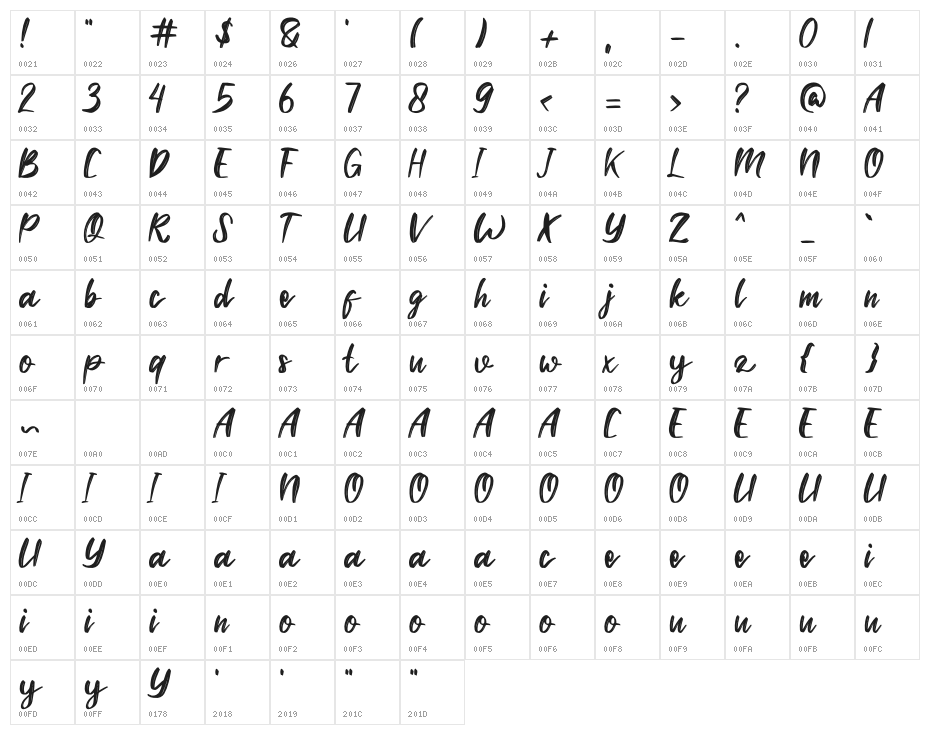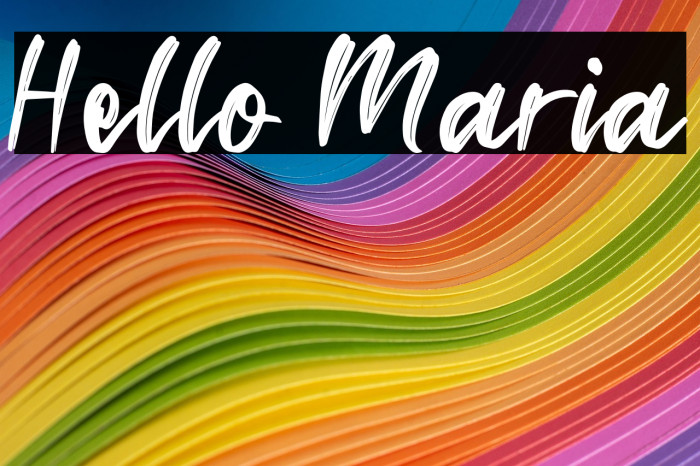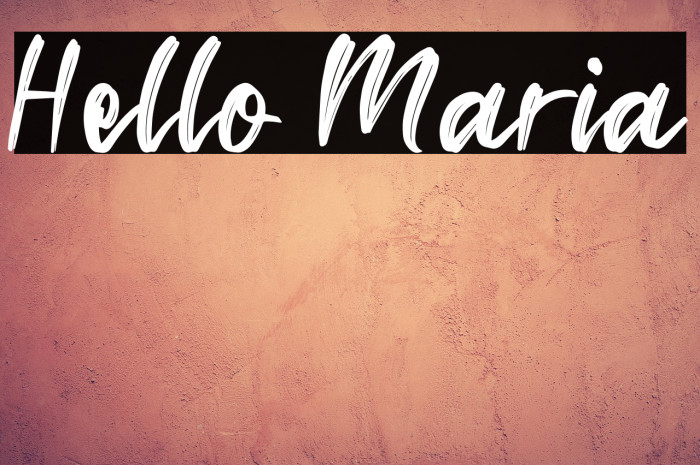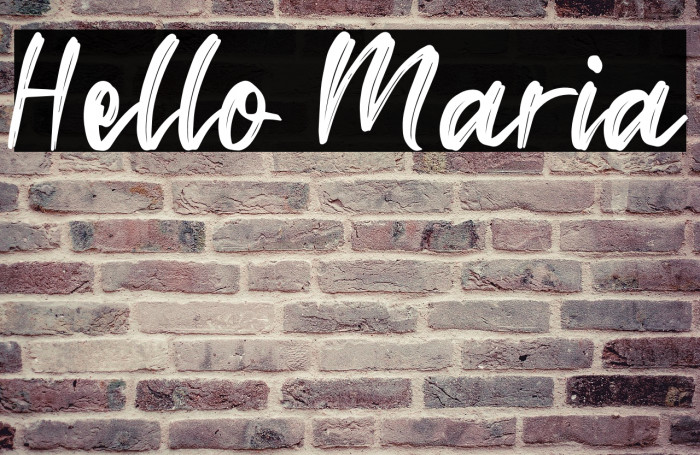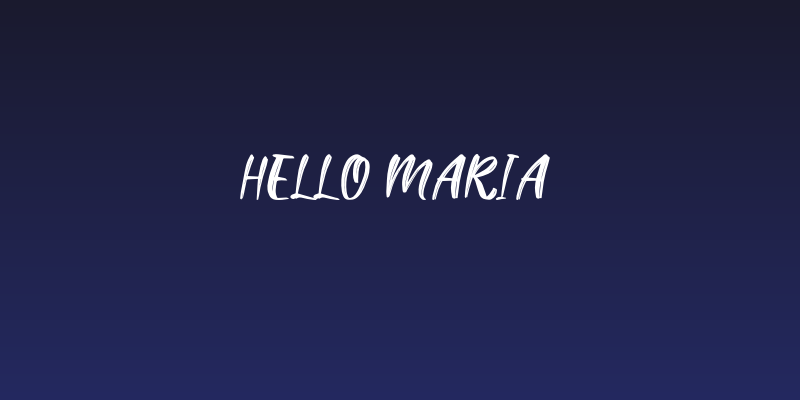
Hello Maria Font
Hello Maria Description
This font exudes a lively and energetic vibe with its bold, handwritten style. The letters are crafted with a brush-like texture, giving them a dynamic and fluid appearance. The uppercase and lowercase characters maintain a consistent flow, while the numbers and special characters complement the overall aesthetic. The strokes are thick and expressive, adding a sense of movement and personality to the text. This font is perfect for projects that require a personal touch or a creative flair. Its informal yet stylish design makes it suitable for a variety of applications, from branding to social media graphics.
| Use Case | Logos, Headlines, Creative projects |
| Proposed Projects | Ideal for branding, social media graphics, invitations, and creative projects. |